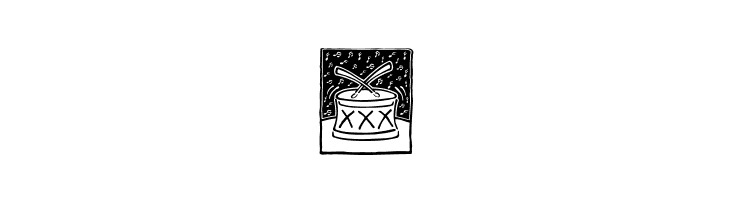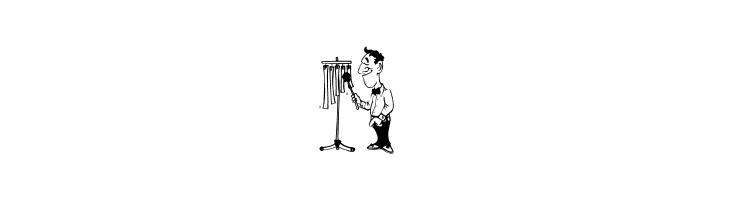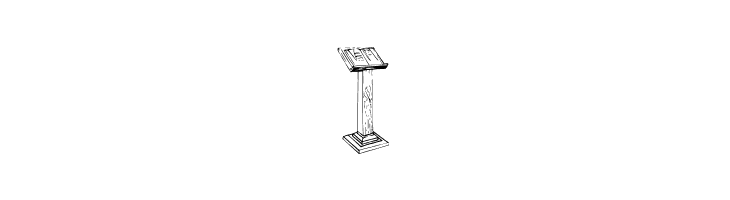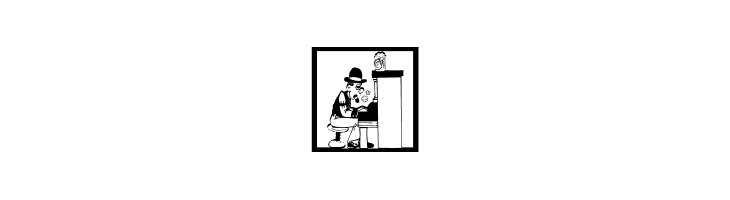
A decorative set of musical symbols and icons with artistic flair.
Cartoonish, musician-themed pictorial font.
A decorative font made from illustrated musical instruments.
Cartoonish, illustrated font with musical character scenes.
A decorative pictogram font of musicians and musical scenes.
Illustrative font with each character as a unique musical instrument drawing.
A display font made from hand-drawn musical instrument illustrations.
Hand-drawn, music-themed decorative font with unique illustrations for each character.
Hand-drawn, cartoonish font with musical character illustrations.